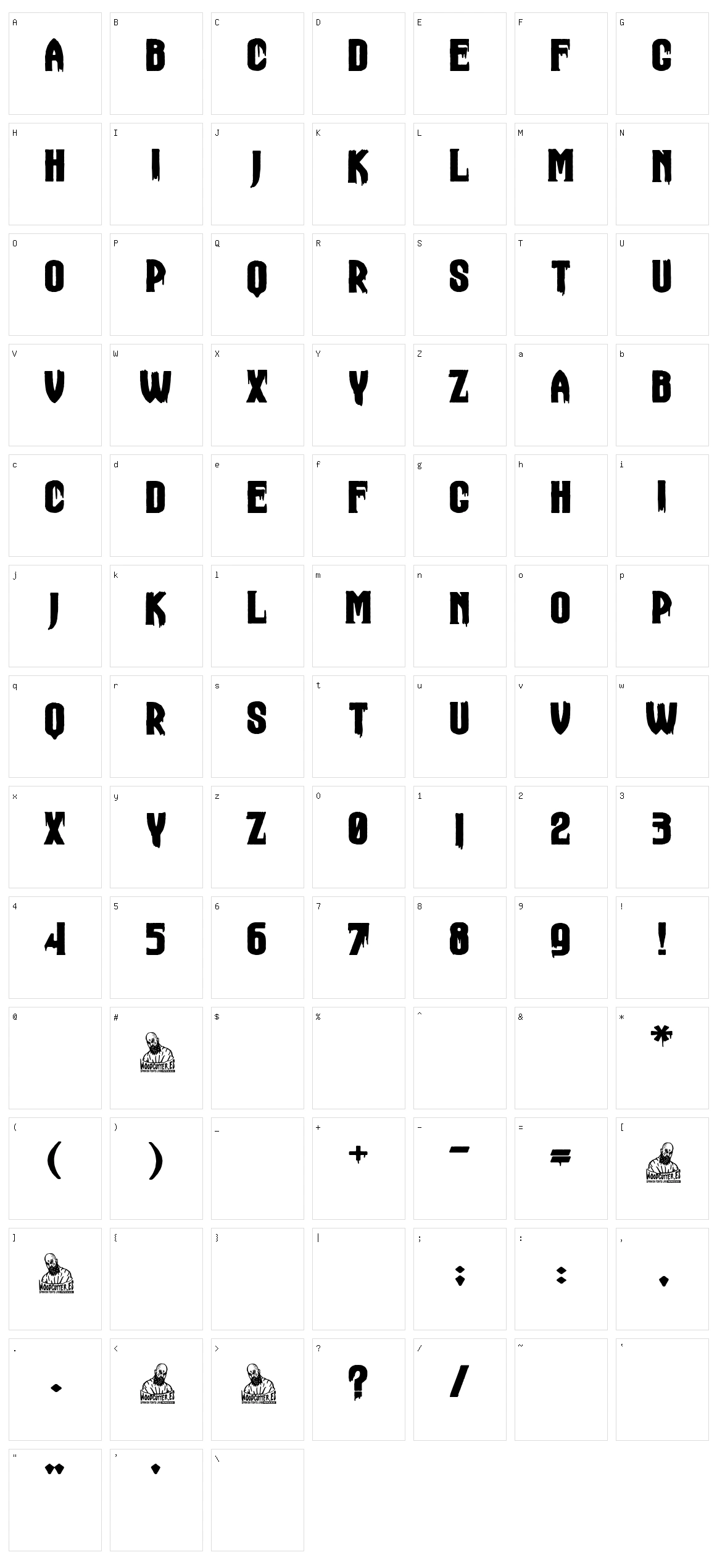
The free font Dracul Hotel is carefully designed by Woodcutter, showcasing a thoughtful balance of creativity and usability and falls under the Horror font style. When you download the ZIP file, it contains only 73.34 KB of font files, making it lightweight and quick to download. Please review the license details below to understand permitted usage and distribution rights. If license information is not available, we recommend using this font for personal projects only or contacting the author directly for commercial usage permissions.